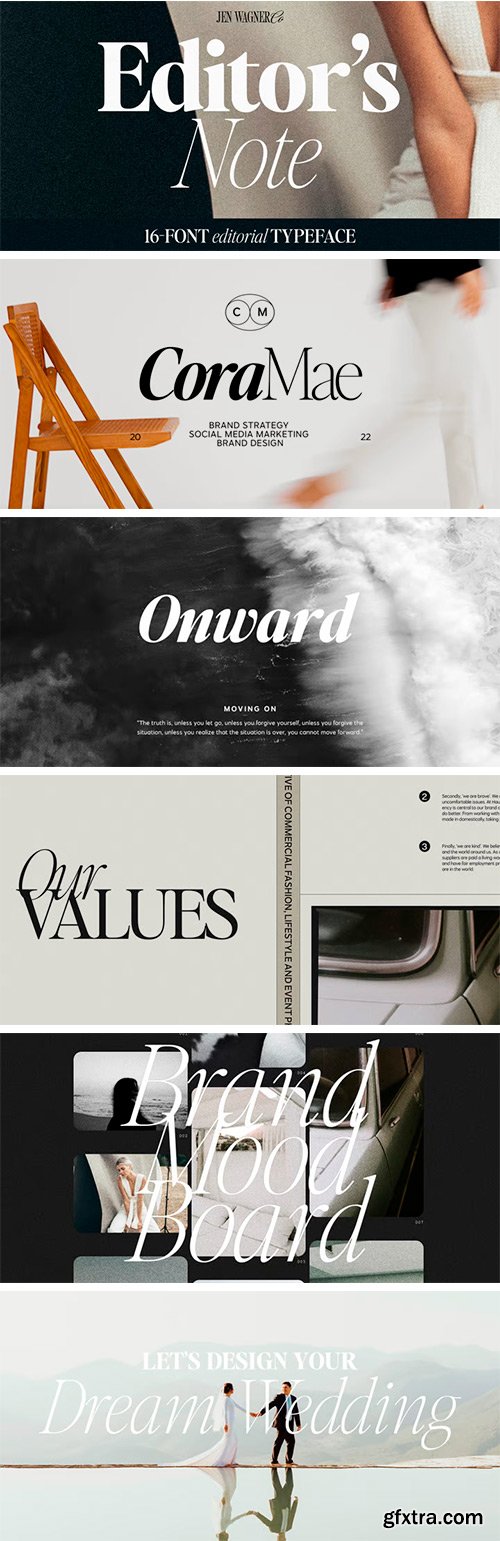
Editors Note Font
Editors Note Font - Web editor’s note is a stunningly crisp upper and lowercase typeface that looks incredible in both large settings as a.